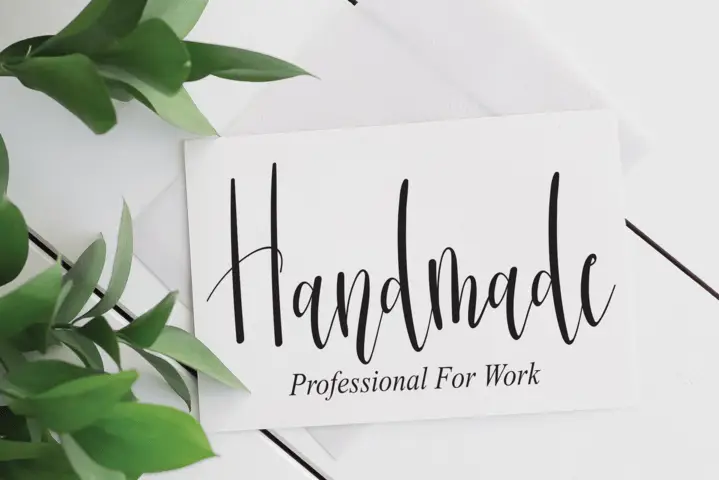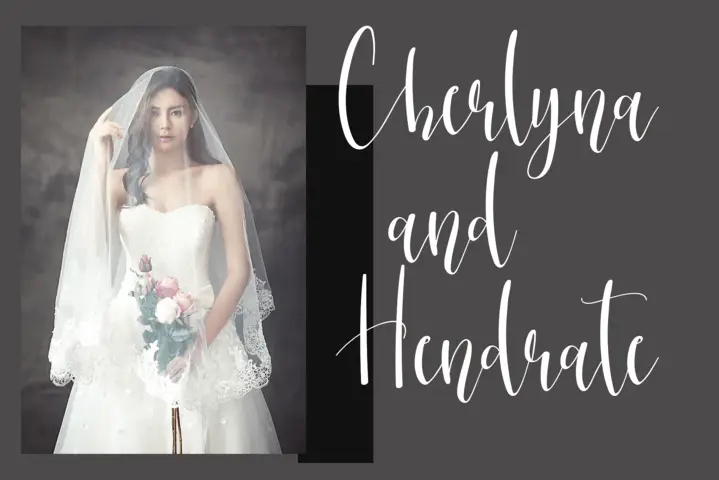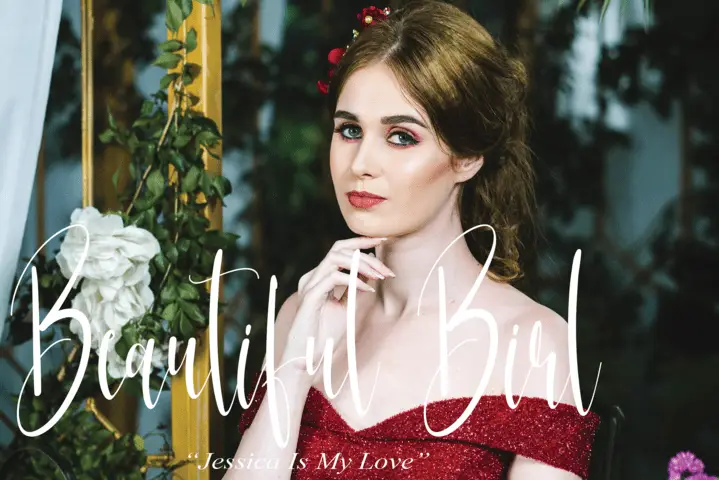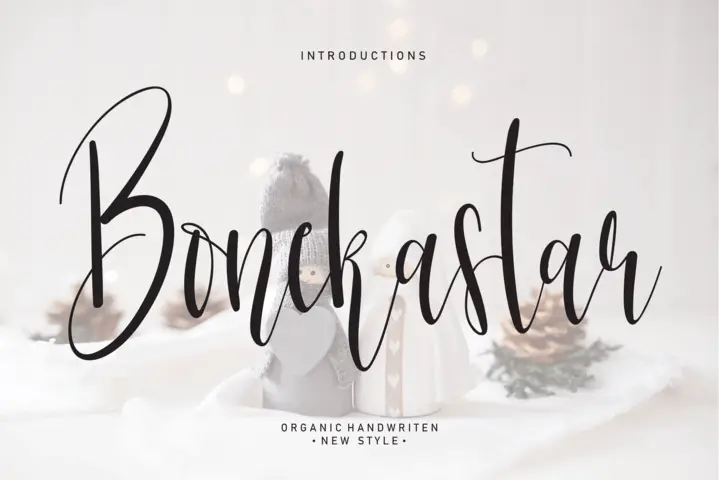
The Bonekastar Script Font is a beautifully crafted typeface that blends elegance with a touch of modern flair. Perfect for a variety of design projects, this font features a unique script style that adds personality to your work.
- Stylish script design
- Supports multilingual characters
- Easy to read and aesthetically pleasing
Bonekastar Script Font